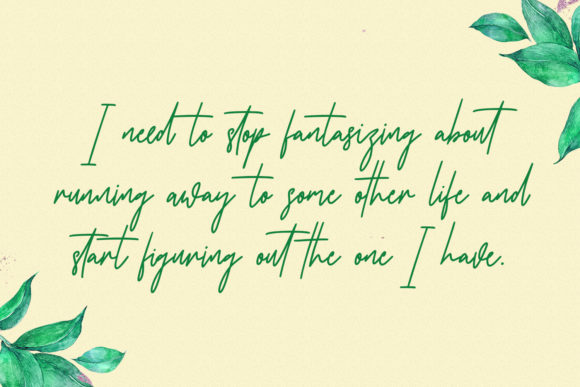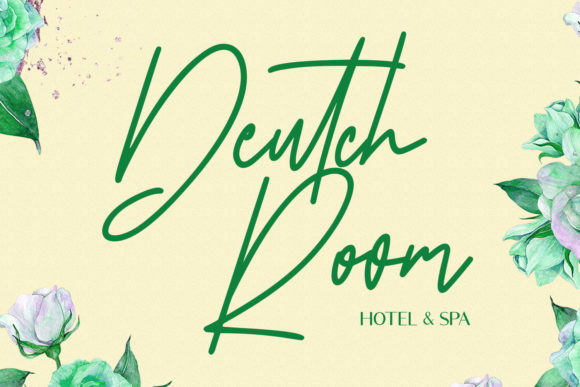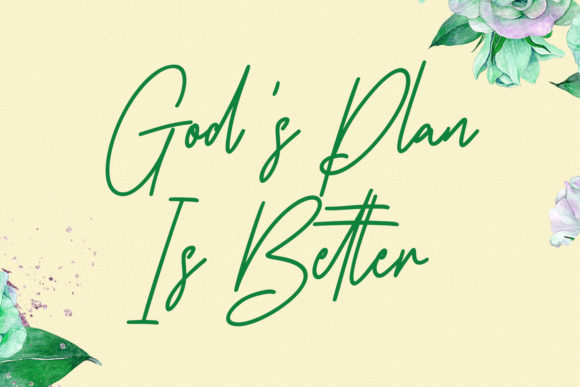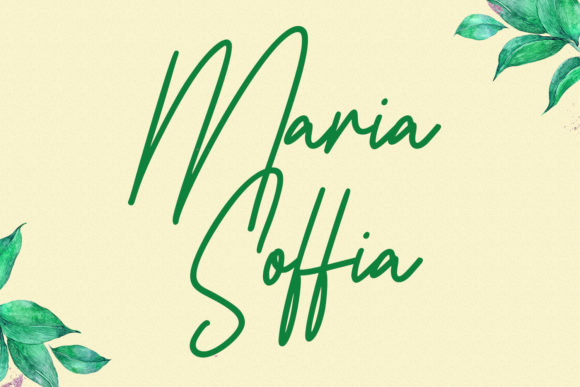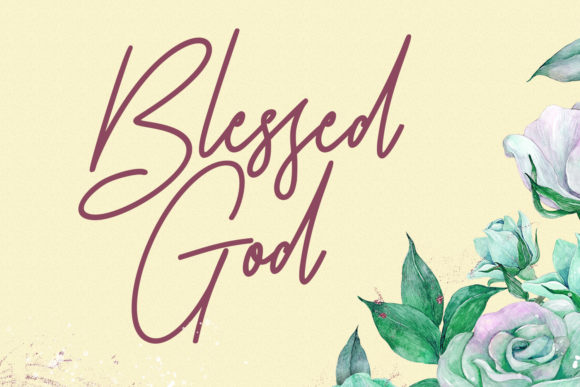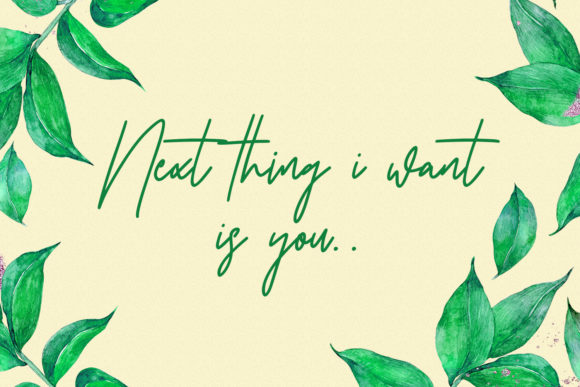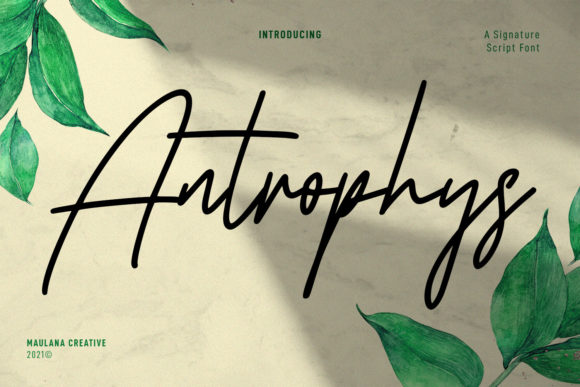
Introducing Antrophys Script Font: Elevate Your Designs with a Casual Signature Style
In the world of typography, script fonts hold a special place for their elegance, personality, and versatility. Among these, the Antrophys Script Font stands out as a unique casual signature script that can add a touch of sophistication and fun to various design projects. Whether you’re a designer, a crafty DIY enthusiast, or a digital artist, Antrophys is about to become your go-to font for creating stunning visual content.
What Makes Antrophys Script Font Special?
Antrophys boasts a regular mono-line stroke that provides a clean and consistent look across its characters. But what truly sets it apart are its fun characters and unique ligatures. These features allow for a high degree of customization and creativity, making your text stand out in a crowd. The mono-line stroke ensures that the font remains readable even in smaller sizes, while the fun characters and ligatures add a playful touch that’s perfect for titles, headings, and short texts.
One of the key advantages of the Antrophys Script Font is its versatility. This font isn’t limited to just one type of project. Here are some areas where Antrophys truly shines:
- Logo Design: Create memorable and impactful logos with a personal touch. The unique ligatures and fun characters in Antrophys can help your brand stand out.
- Social Media: Enhance your social media posts and stories with stylish text. Antrophys’s casual yet elegant vibe is perfect for grabbing attention.
- Movie and Book Titles: Give your movie or book a professional and captivating title. The font’s readability and style make it ideal for titles and headings.
- Short and Long Texts: Whether you’re working on a short phrase or a lengthy paragraph, Antrophys maintains its charm and readability, making it a versatile choice for various text lengths.
Why Choose Antrophys for Your Projects?
Choosing a font for your project can be overwhelming with the numerous options available. However, Antrophys Script Font offers several compelling reasons to be your top pick:
- Customization: With its unique ligatures and fun characters, Antrophys offers a lot of room for customization. You can play around with different combinations to match your project’s tone and style.
- Readability: Despite its decorative nature, Antrophys maintains a high level of readability, making it suitable for both short and long texts.
- Uniqueness: In a sea of script fonts, Antrophys stands out with its distinctive mono-line stroke and character design, ensuring your work doesn’t go unnoticed.
Tips for Making Stunning Work with Antrophys
To truly leverage the potential of Antrophys Script Font, consider the following tips:
- Experiment with Ligatures: Don’t be afraid to try out different ligatures and character combinations. This can add a unique touch to your text.
- Mix and Match: Combine Antrophys with other fonts for contrasting headings and body text. Its mono-line stroke pairs well with a variety of font styles.
- Play with Colors: Antrophys looks great in bold colors. Experiment with different colors to find the one that best suits your project’s mood.
- Use it for Headers and Titles: Save Antrophys for the headers and titles to create a visual hierarchy. This will not only make your content more engaging but also easier to read.
Antrophys Script Font is more than just a typeface; it’s a tool for creativity and expression. Its unique blend of casual elegance and playful charm makes it an excellent choice for designers and crafters looking to add a personal touch to their projects. Whether you’re working on a logo, social media content, or book titles, Antrophys offers the versatility and style to make your work stand out. So, why wait? Dive into the world of Antrophys and elevate your designs with its distinctive casual signature script style.